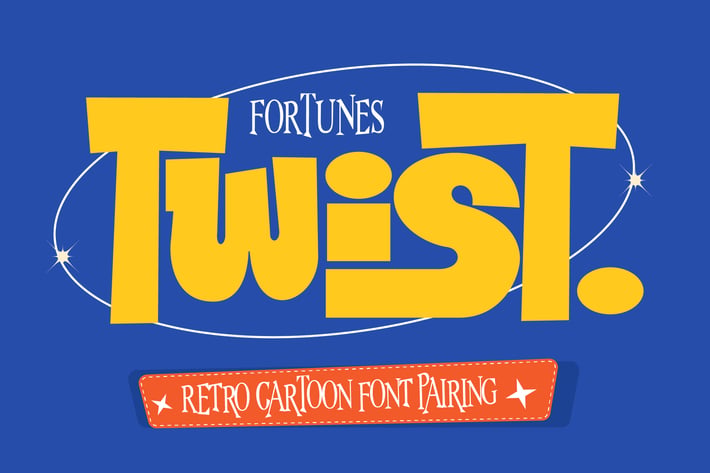
Cd Retro Twist Font Pair
The Twist font is a bold typeface with a playful appearance. I tried to combine 2 fonts inspired by TV broadcasts, mid-century storybooks. It is suitable for broadcast, labels, logos, magazines, clothing and other commercial purposes. You can choose from three styles, regular, round, and rough, so you can get the retro/modern look you want
Alternates
3 style (Regular, Rough, Round)
4 Fonts
Ligatures (Li, Lo, Le La, is, os, tt, itt, ae, ff, fl, ffl, fi, oo, ti, us, st, Th, it, Ra.)